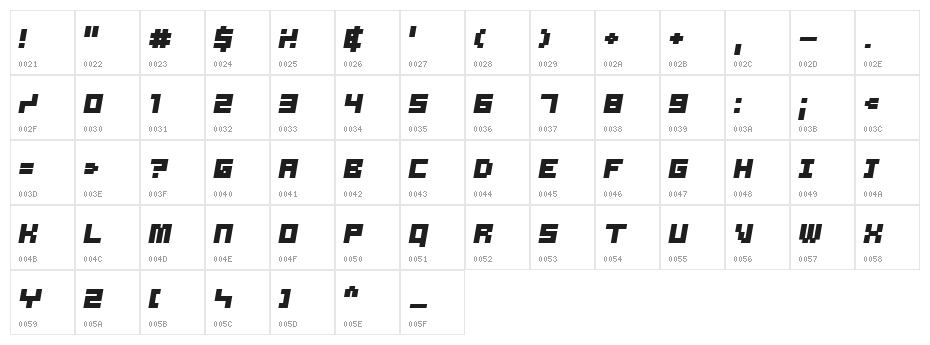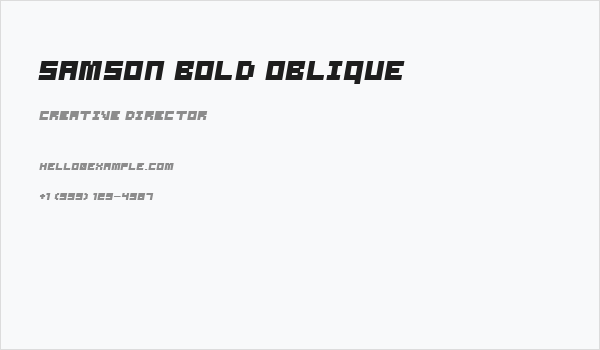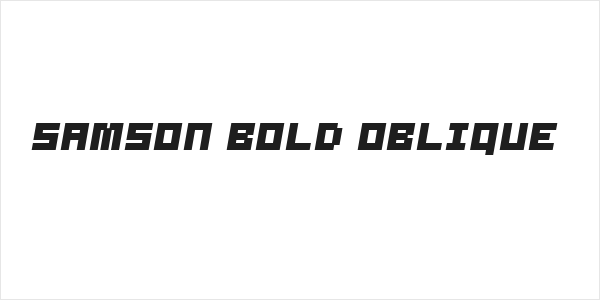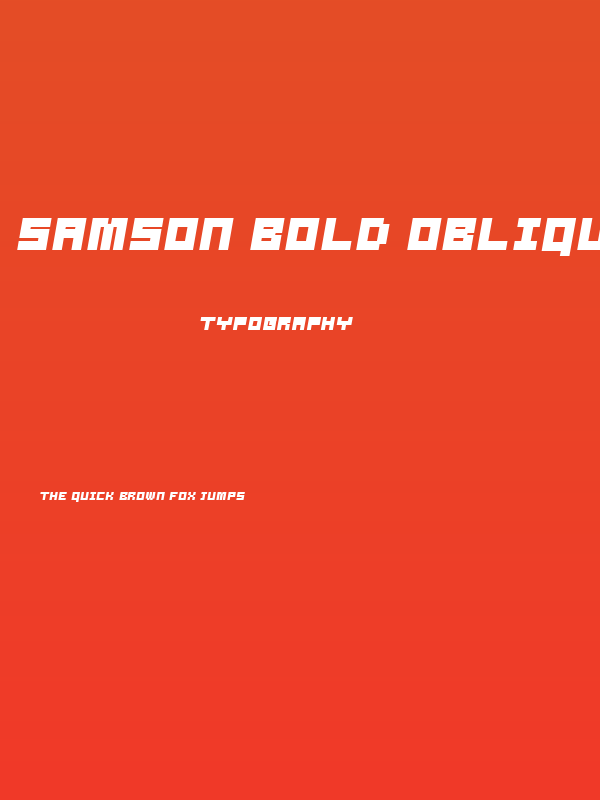
Samson Bold Oblique Font
Samson Bold Oblique Description
This font features bold, angular characters with a strong geometric influence. Each letter is designed with a distinct slant, giving it an oblique appearance that adds dynamism and energy. The characters are uniformly bold, with consistent stroke thickness throughout, creating a powerful visual impact. The uppercase and lowercase letters maintain a cohesive style, while the numerals and special characters complement the overall design. This font's boldness and slant make it ideal for attention-grabbing headlines and modern design projects.